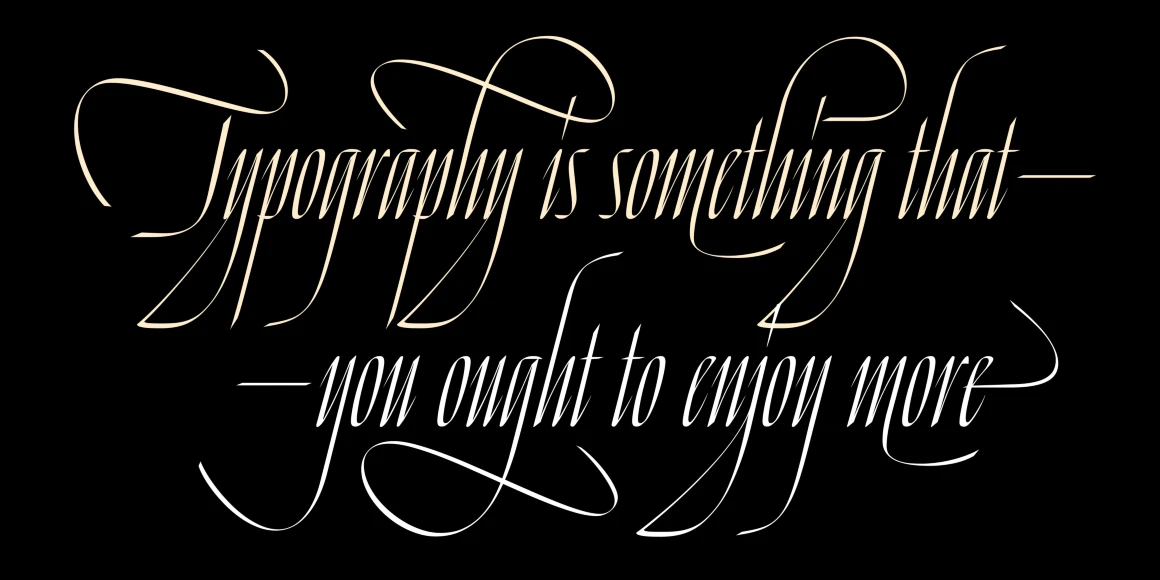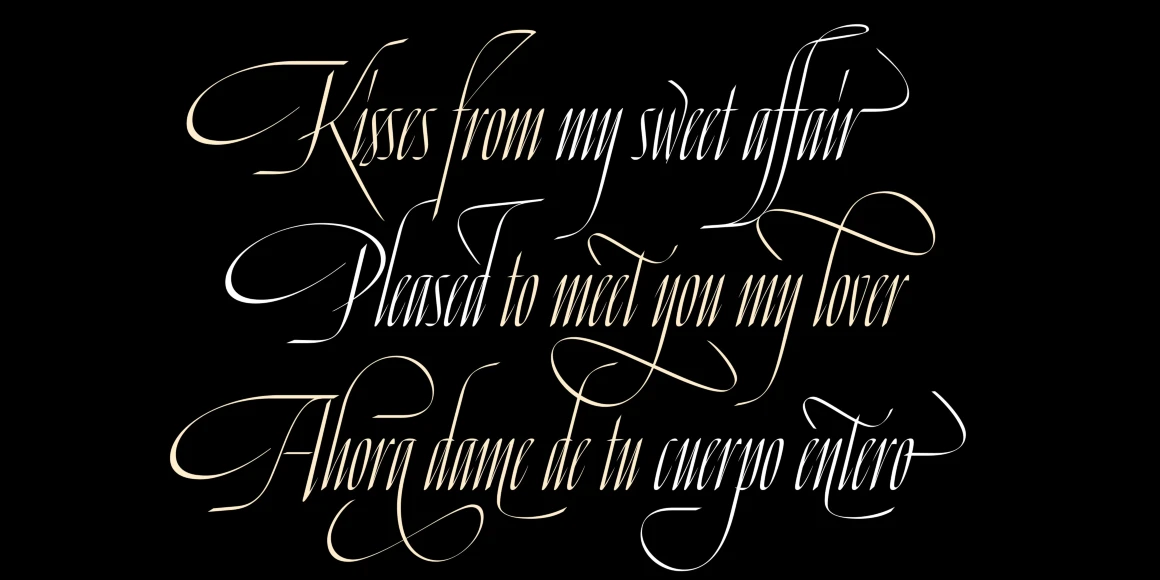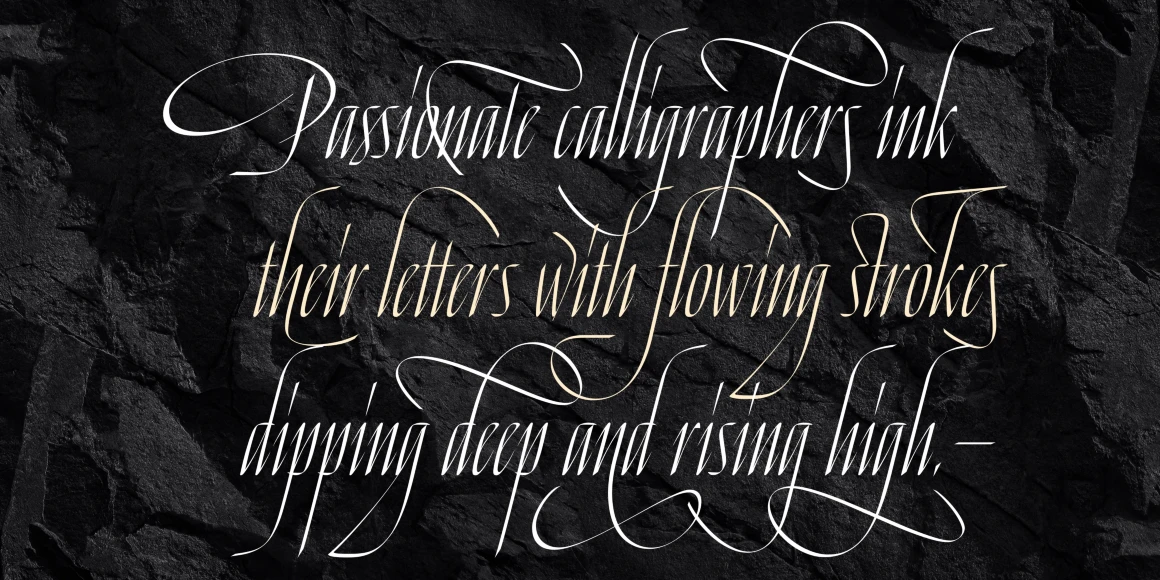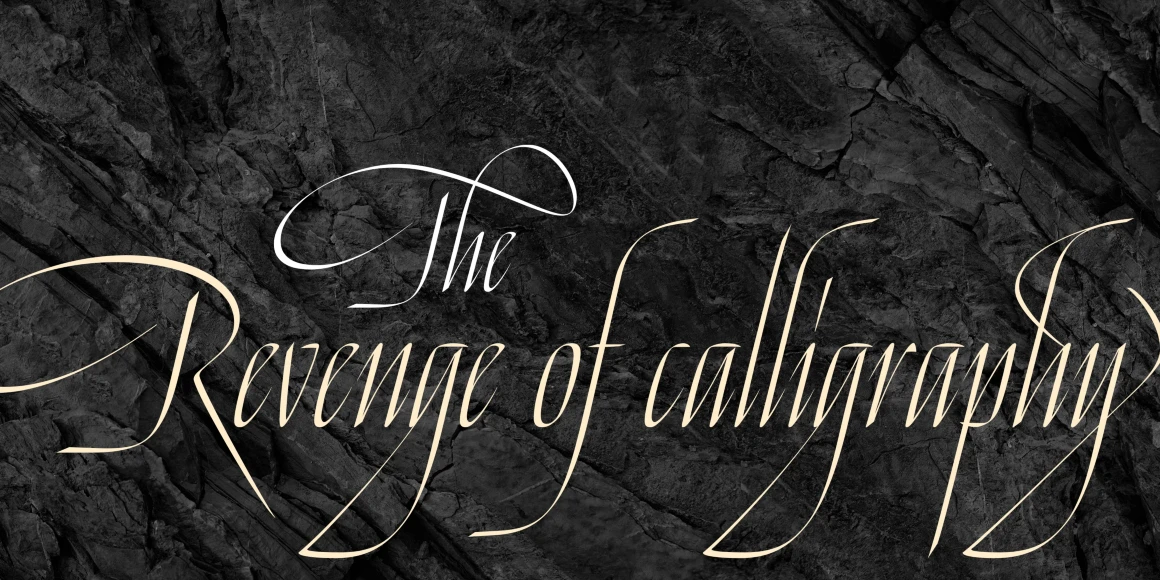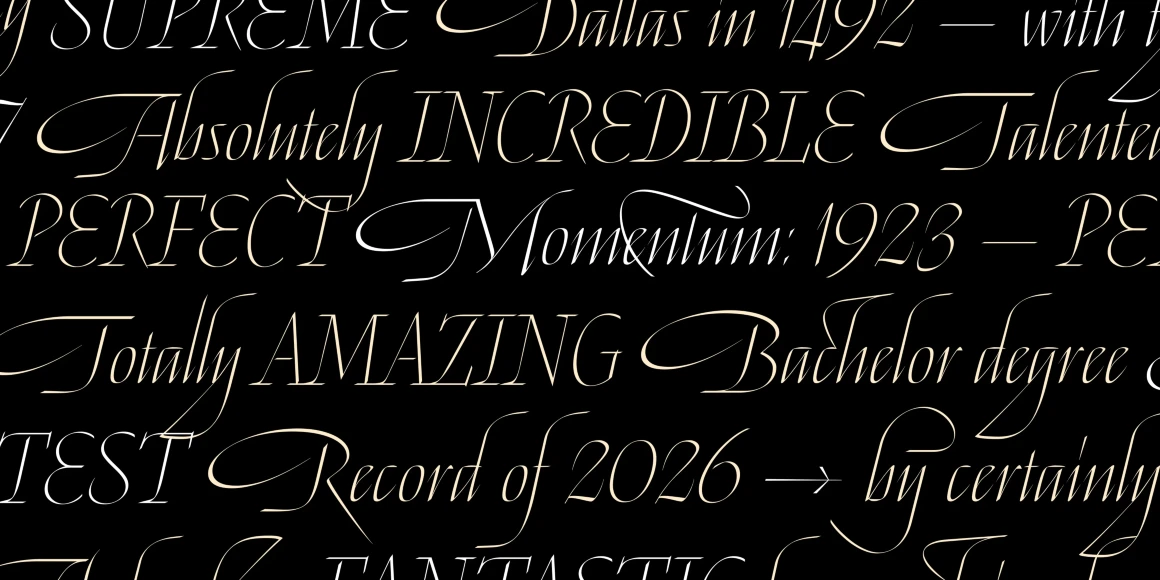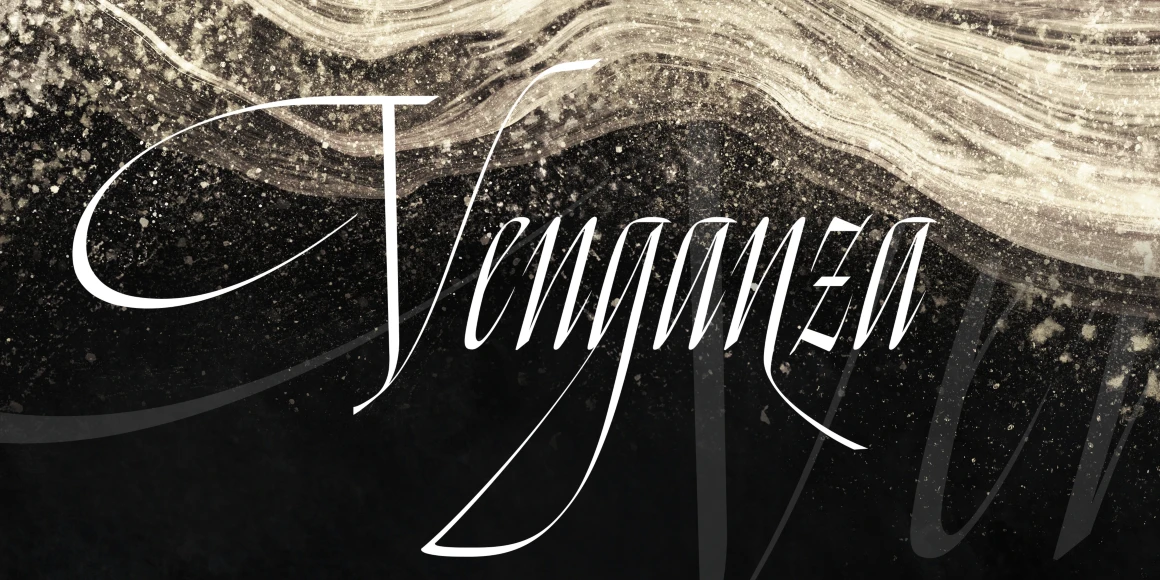
Venganza
From Sproviero Type
Venganza is a calligraphic font family filled with elegant flourish and syncopated precision. Based on the Chancery script, it is an exploration in angled stems, exaggerated verticality, extreme stroke contrast, and sweeping curves. The long descenders and high-arching ascenders give the typeface a visual breathing space between tension and release — a controlled flamboyance. Venganza is well-suited for delivering visual suspense and high drama to book covers, luxury branding, film posters, and editorial layouts.
Designed by Maximiliano Sproviero